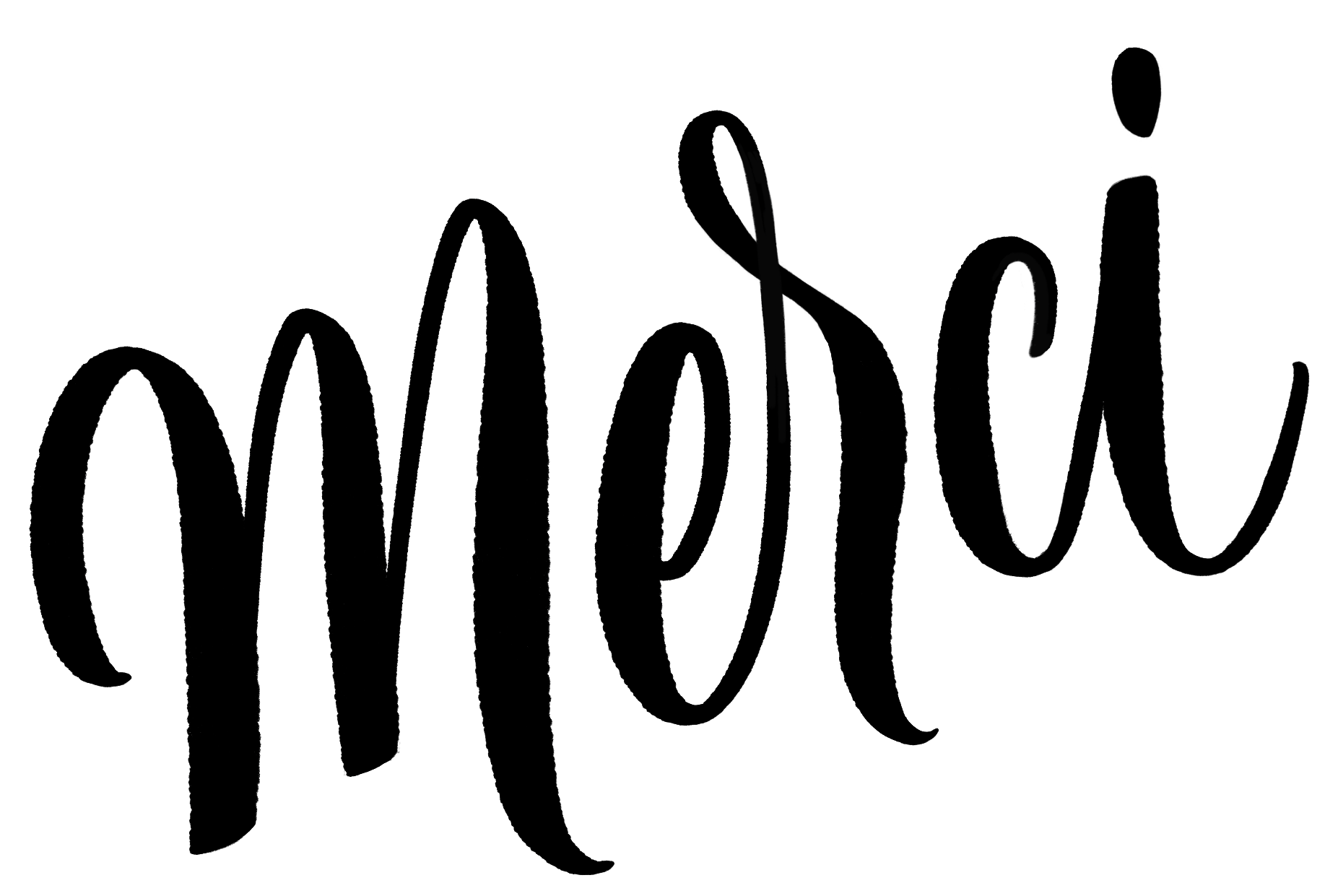
I’m Svetlana — a graphic designer and lettering artist based in Rouen, France.
My work is rooted in typography, letterform design, and a quiet, considered approach to visual identity. I focus on clarity, proportion, and the long-term presence of letters — whether in a logotype, a custom typeface, or a typographic system.
With a background in both graphic design and type design, I approach each project with attention to detail and restraint, favouring solutions that feel timeless rather than trend-driven.
Alongside client work, I develop original typefaces and lettering studies as part of an ongoing typographic practice.